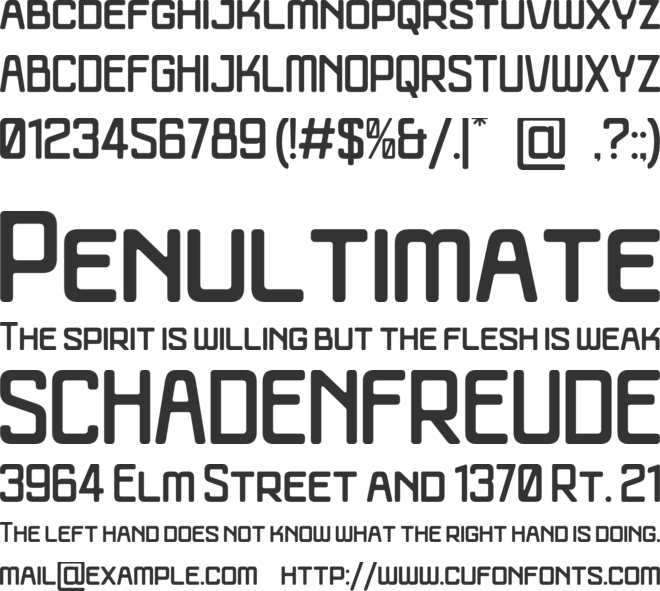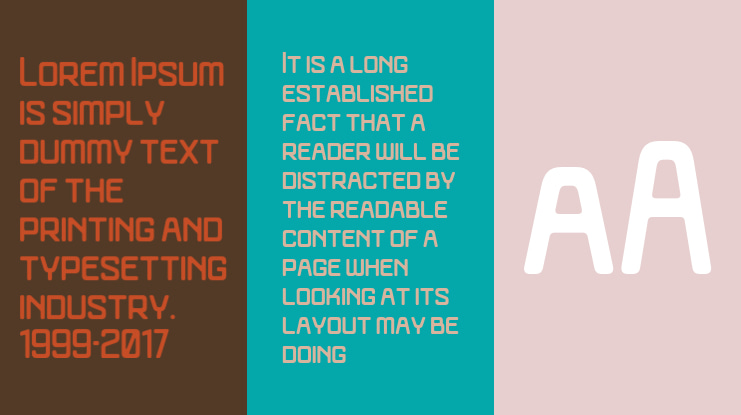
Veltcon Font
Perfect for
- Vintage branding & logo design
- Retro signage & poster
- Classic packaging
- Cafe, motel, and travel theme design
- Editorial & magazine headlines
- Apparel & merchandise
- Social media vintage content